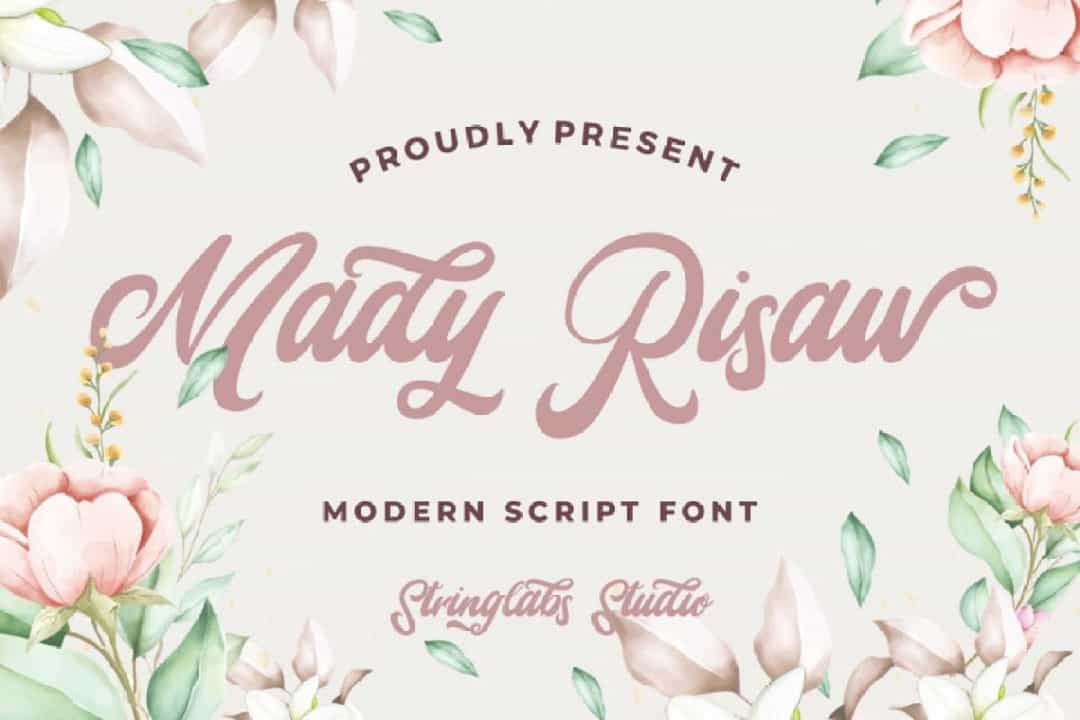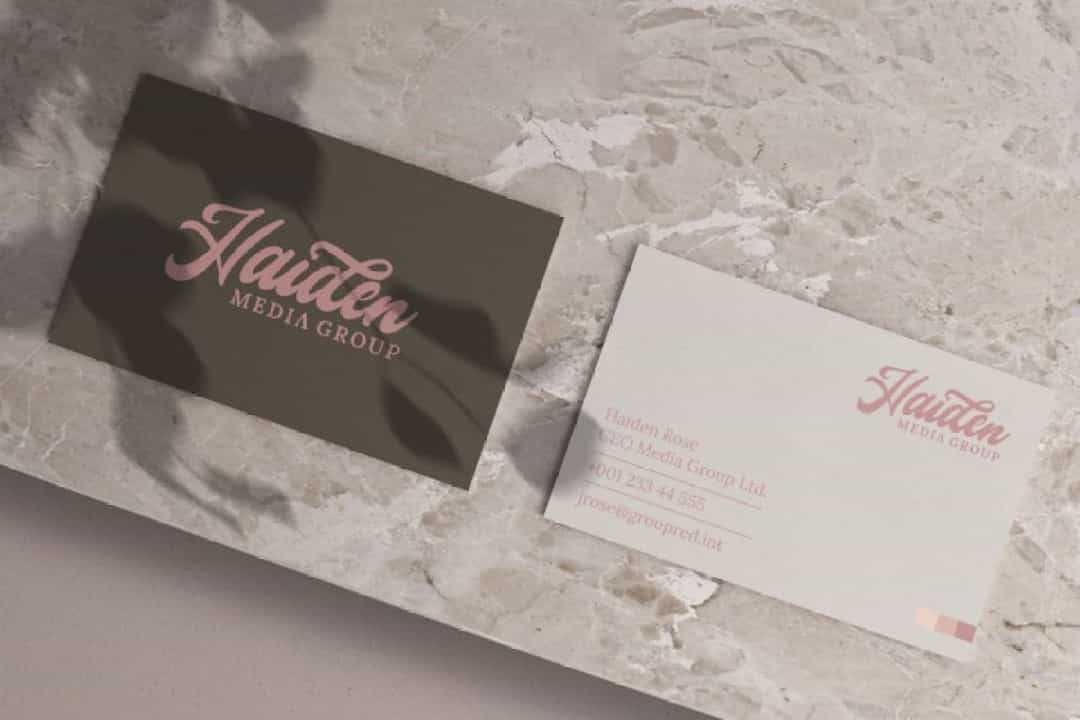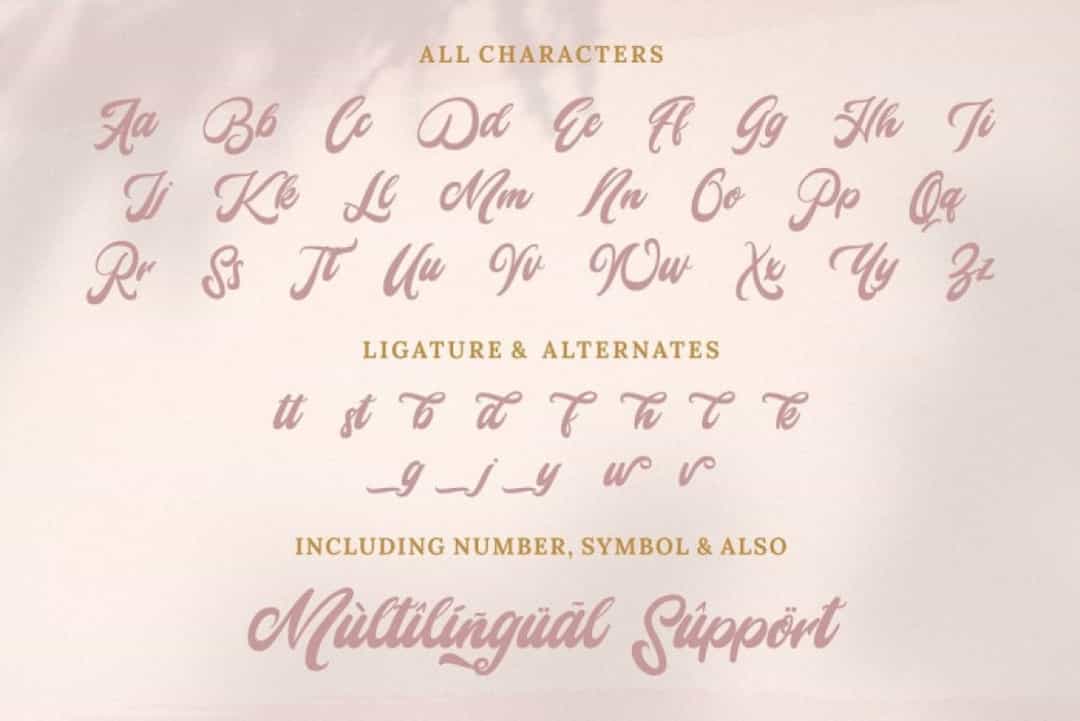
Mady Risaw is a soft elegant handwritten font with well-balanced characters that is impactful for many styles of works. You can use Mady Risaw font in your most creative works and notice how the font makes them even more amazing! Due to the character types that are present in Mady Risaw designs there are so many ways to enhance them and make them more interesting!